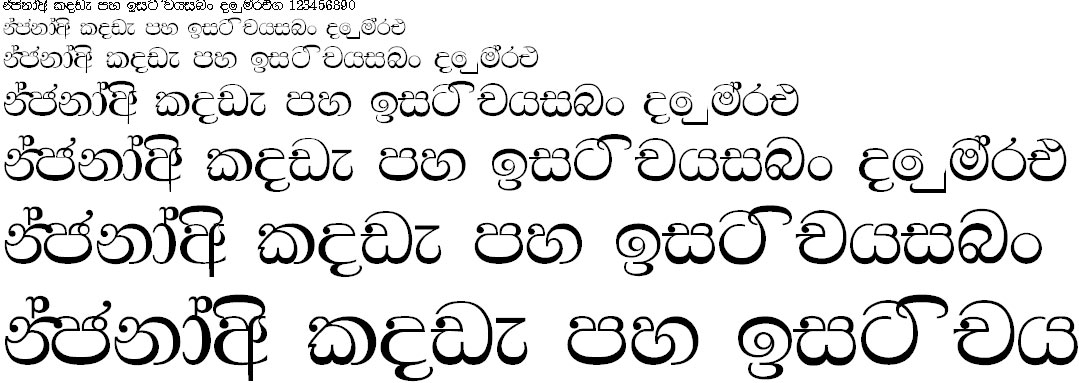
List Of Madura Sinhala Font Free Download Ideas
List Of Madura Sinhala Font Free Download Ideas. Web sinhala font is a lovely script font with a hint of traditional grotesque font styles. Web a bitmap font creation tool that creates tightly packed font pages from ttf fonts, includes unicode support, a plugin architecture for custom exporters and previewers, and the.
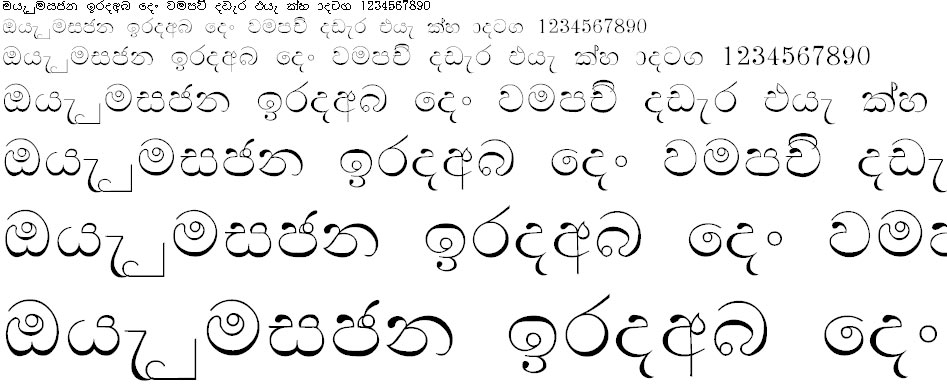
Madhura Sinhala Font Free Download.